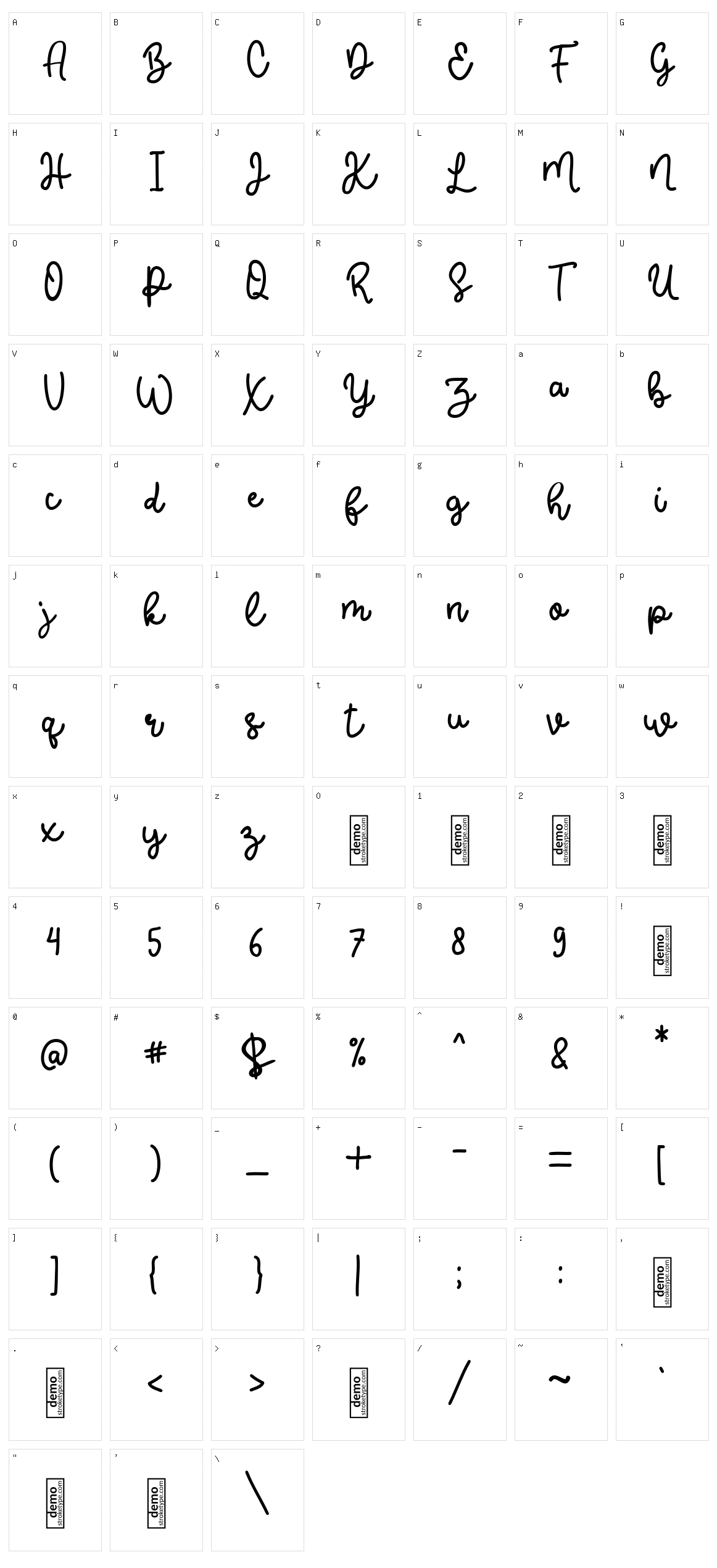
The free font Iphigenia is carefully designed by Abdullah Daud, showcasing a thoughtful balance of creativity and usability and falls under the Script font style. When you download the ZIP file, it contains only 47.69 KB of font files, making it lightweight and quick to download. Please review the license details below to understand permitted usage and distribution rights. If license information is not available, we recommend using this font for personal projects only or contacting the author directly for commercial usage permissions.
This font is also limited, without swash and some numbers or punctuations.